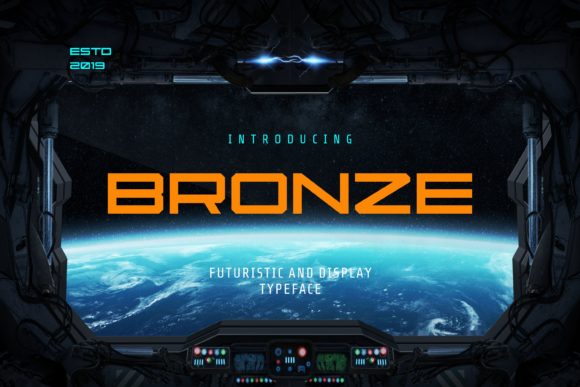
Bronze Font
Prepare yourself to be mesmerized by Bronze Font, the captivating display font that exudes futuristic elegance. Its sleek and stylish letterforms are meticulously crafted to evoke a sense of innovation and progress, making it the perfect choice for forward-thinking brands and projects.
Bronze Font's striking presence commands attention, leaving a lasting impression on your audience. Its sharp angles and geometric shapes create a dynamic visual rhythm, while its clean lines and precise details exude a refined and sophisticated aesthetic. Whether you're designing logos, branding, packaging, posters, invitations, or any advertising project, Bronze Font will elevate your designs to new heights.
Step into the future with Bronze Font and unleash your creativity. Its versatility knows no bounds, allowing you to effortlessly convey your brand's message and capture the imagination of your audience. From bold and powerful headlines to delicate and intricate subtext, Bronze Font adapts seamlessly to your design needs, ensuring that your words resonate with clarity and impact.
With Bronze Font, you're not just downloading a font; you're investing in a powerful design tool that will transform your creative endeavors. Its distinctive style will set your projects apart from the ordinary, leaving a lasting impression that lingers in the minds of your audience.
Embrace the allure of Bronze Font and embark on a journey of innovation and style. Let its futuristic charm captivate your audience and propel your designs to new heights. Download Bronze Font today and unlock the gateway to a world of creative possibilities.